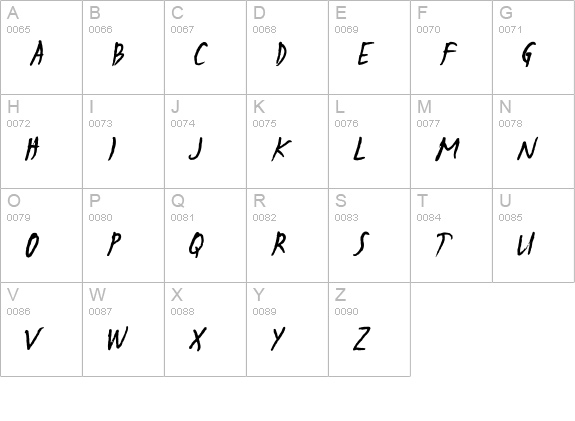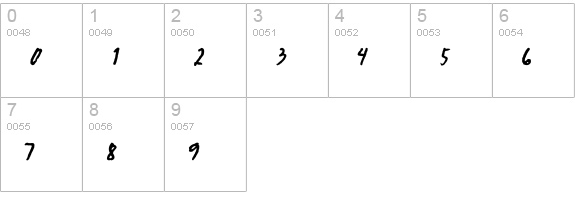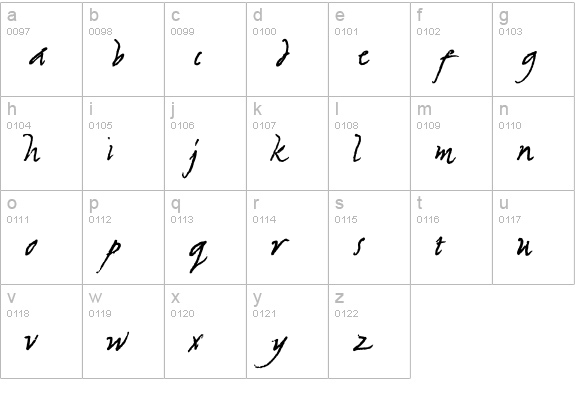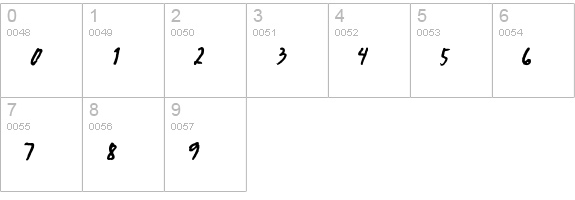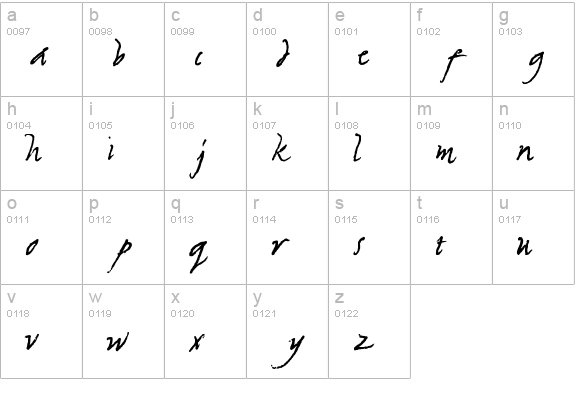
Sulatko Font Details
Sulatko font is a stunning and versatile typeface that exudes elegance and sophistication. With its sleek lines and modern design, Sulatko is perfect for a wide range of design projects, from branding to editorial design. This font features a unique blend of classic and contemporary elements, making it a standout choice for any creative endeavor. What sets Sulatko font apart is not only its striking aesthetic appeal but also its accessibility. This exquisite font is available for free download at FontsMarket.com, allowing designers and creatives to easily incorporate it into their projects without any cost barrier. Whether you're working on a logo, website, or print material, Sulatko font will effortlessly elevate your design and leave a lasting impression. Embrace the beauty and versatility of Sulatko font today and unleash your creativity with this exceptional typeface that is as stylish as it is free to use. Download it now at FontsMarket.com and let your designs shine with Sulatko.